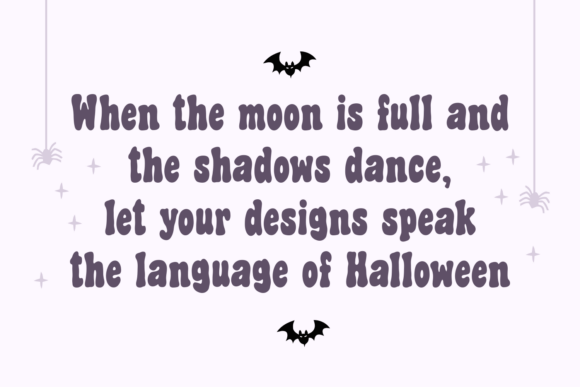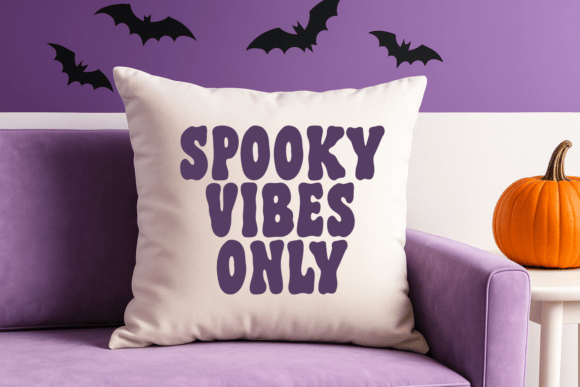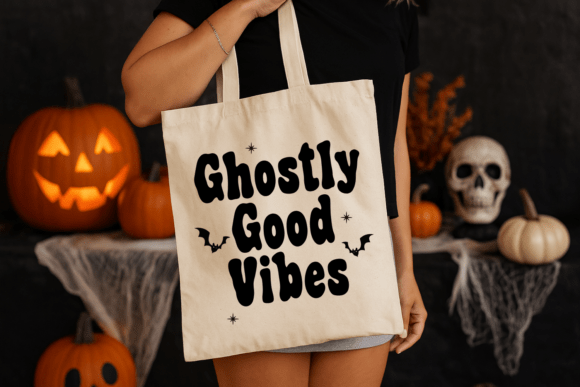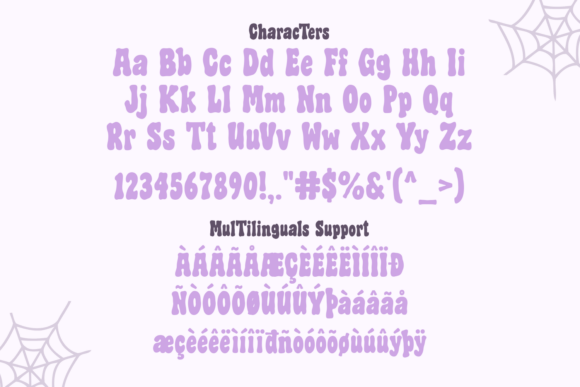
Ghoulish Hauntipop Font
Ghoulish Hauntipop is a charming retro-cute Halloween font that blends spooky fun with playful vintage vibes. With its bubbly letterforms and soft curves, this typeface captures the perfect balance between eerie and adorable—making it ideal for designs that need a touch of Halloween magic without being too scary.
Perfect for crafting party invitations, seasonal greeting cards, children’s Halloween books, candy packaging, apparel, stickers, social media posts, and more. The friendly yet slightly mysterious style of Ghoulish Hauntipop makes it versatile for both kid-friendly projects and retro-inspired designs.
Whether you’re going for whimsical witch vibes, cute ghost aesthetics, or retro pumpkin patch charm, Ghoulish Hauntipop will make your words pop with a delightful spooky twist. It’s the perfect typeface to celebrate the season in a sweet, stylish, and slightly haunted way.